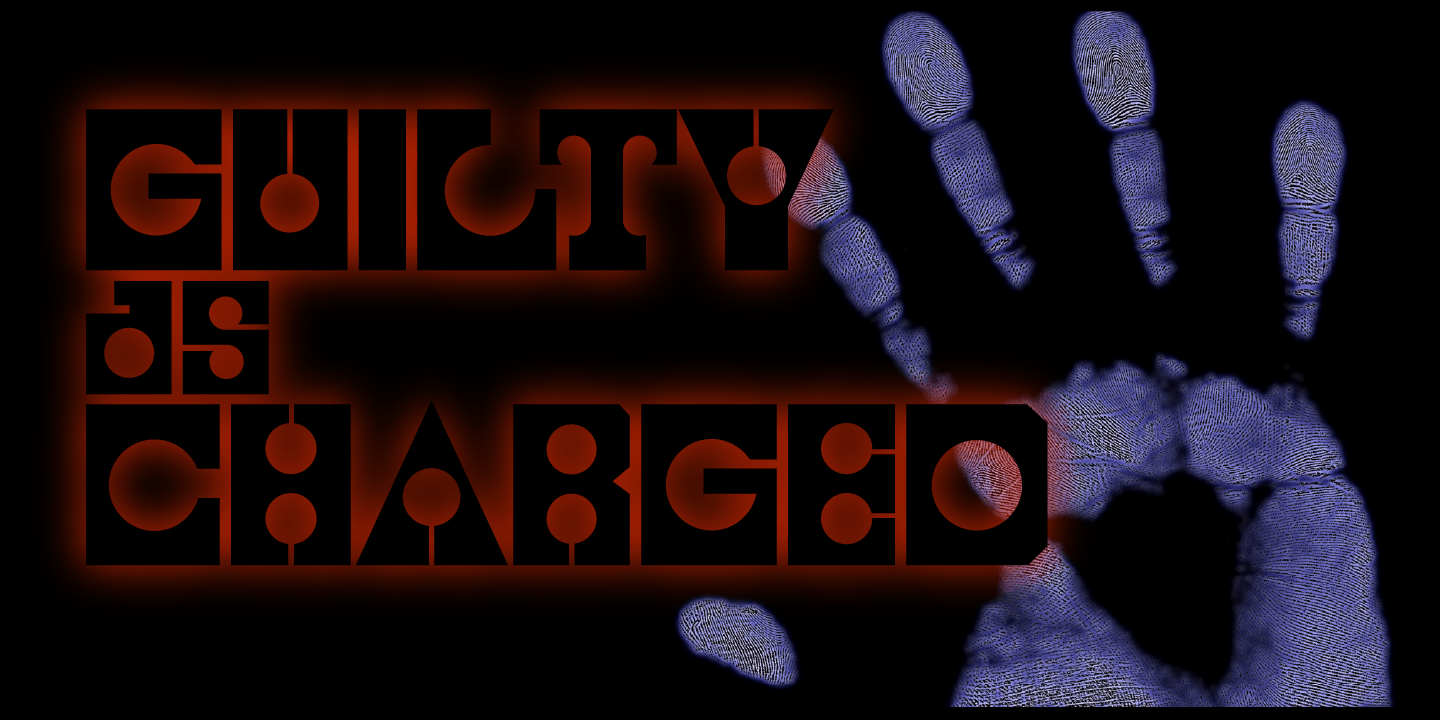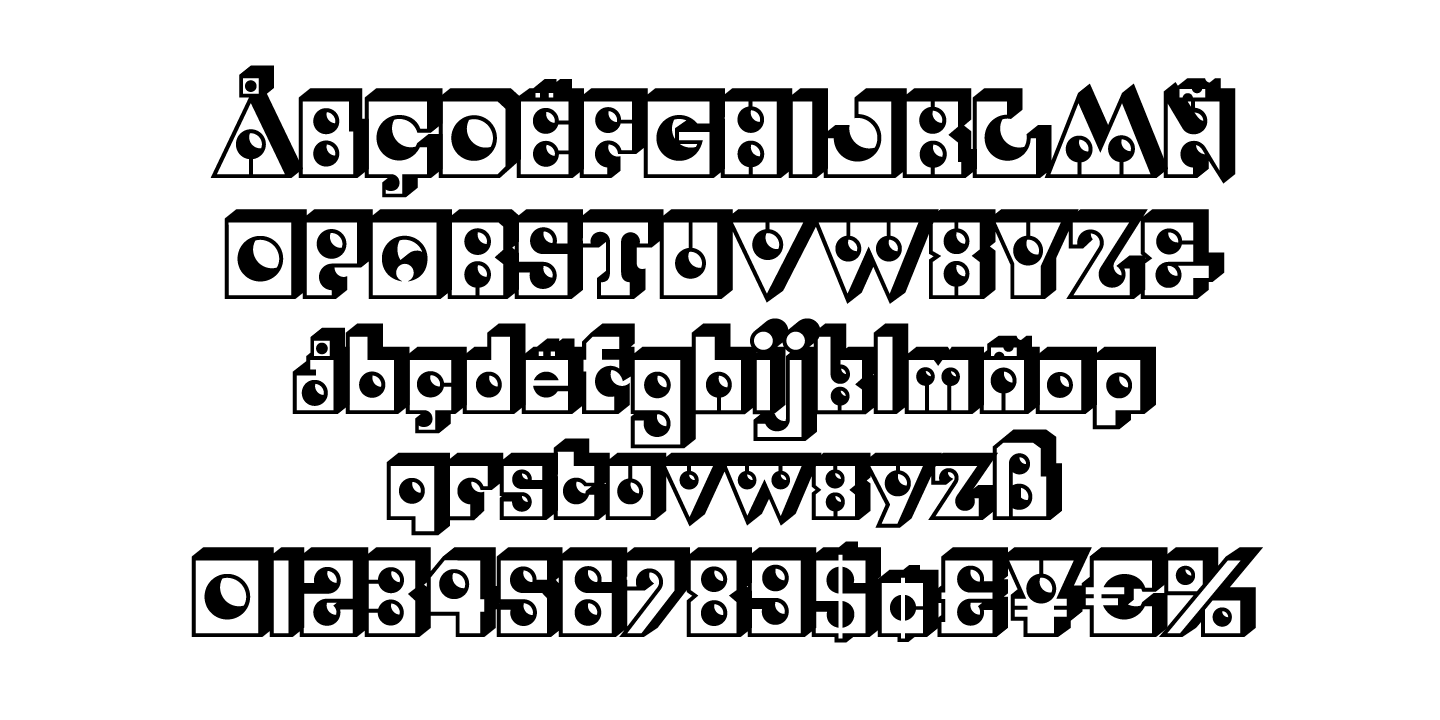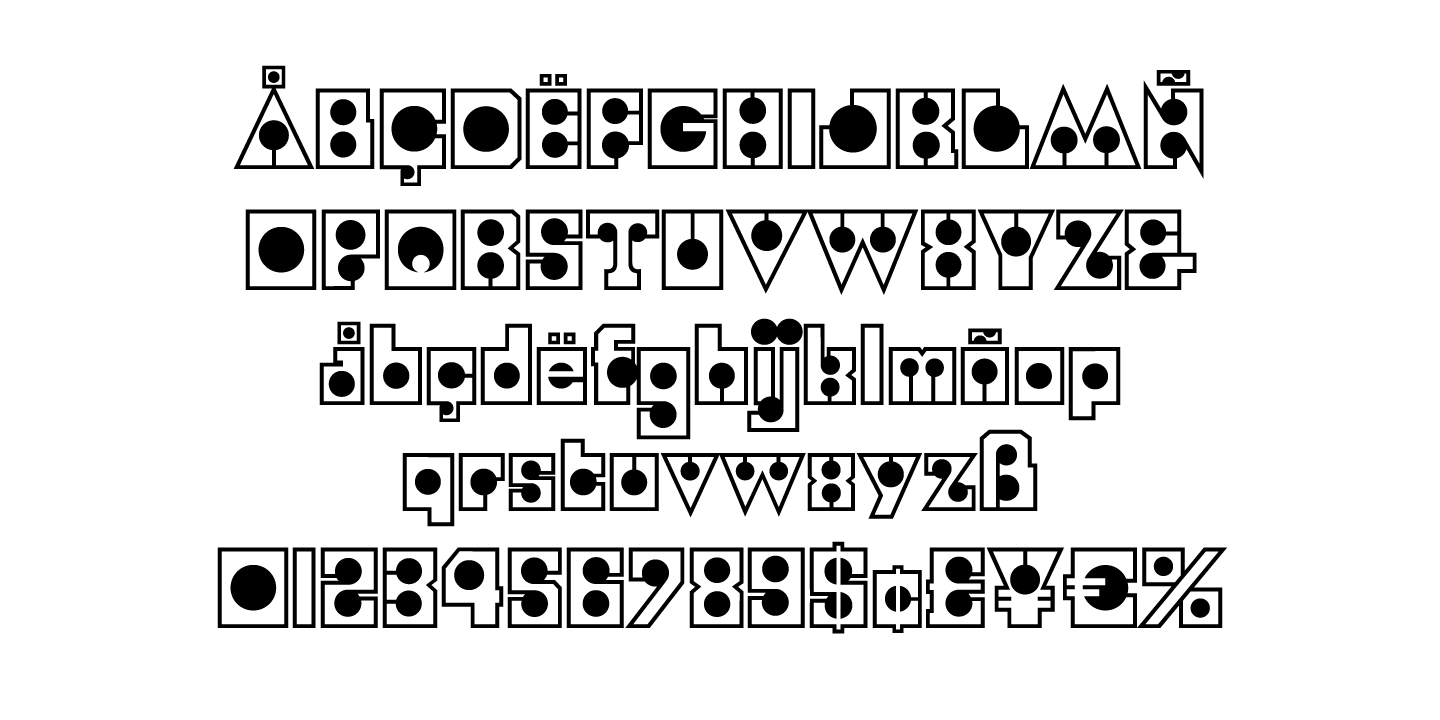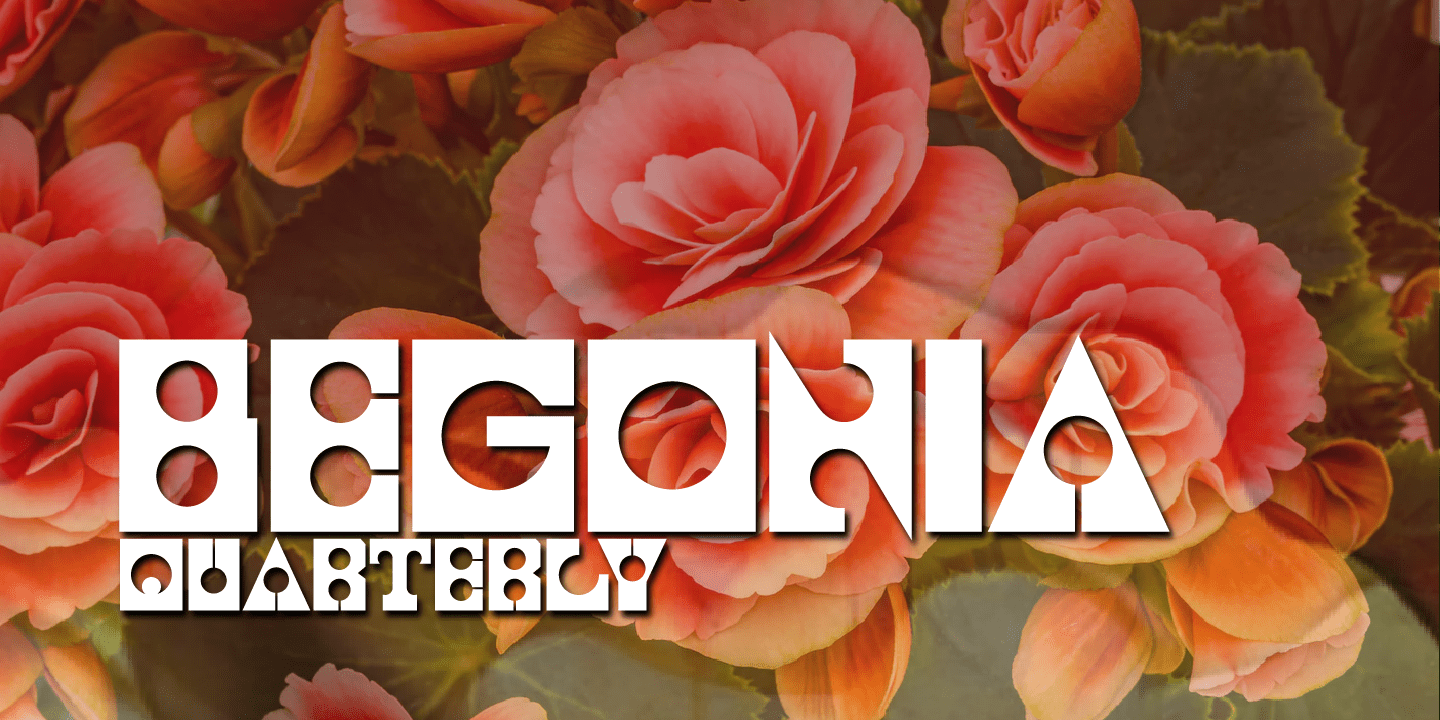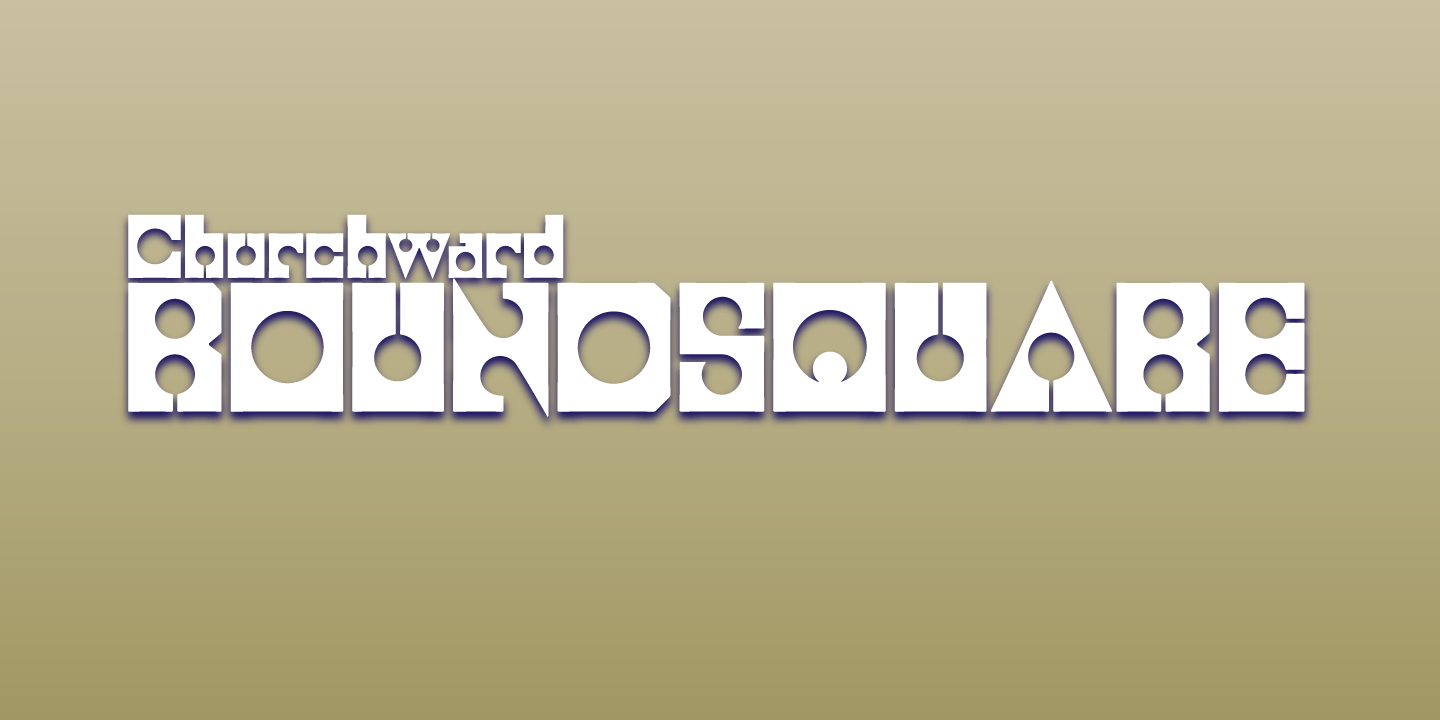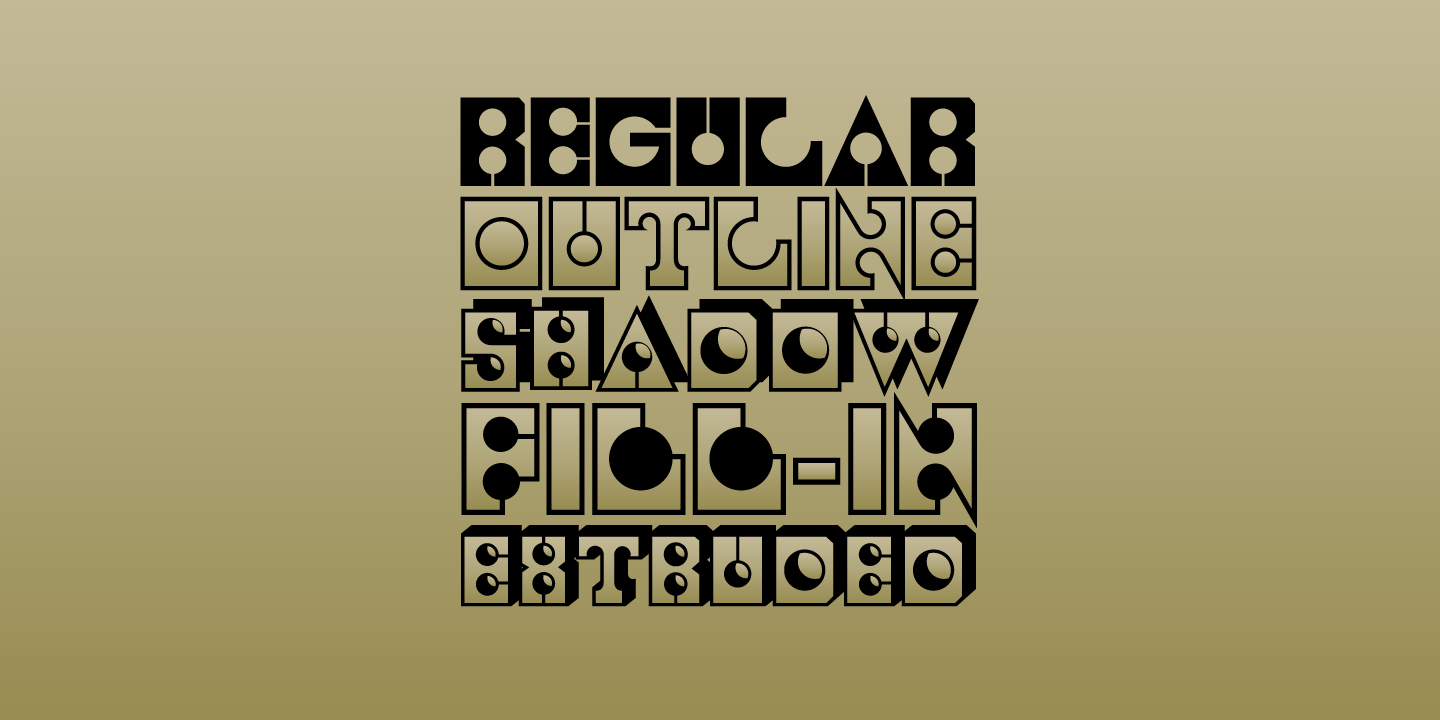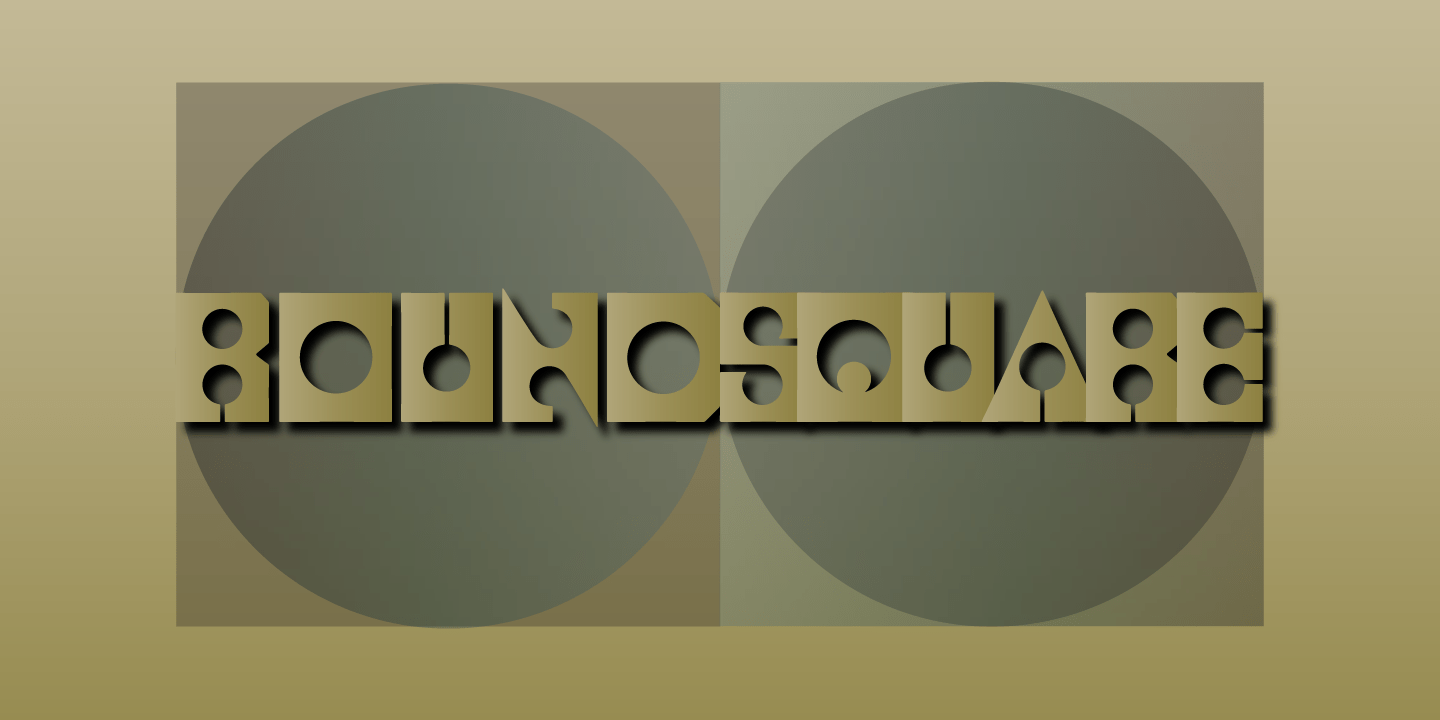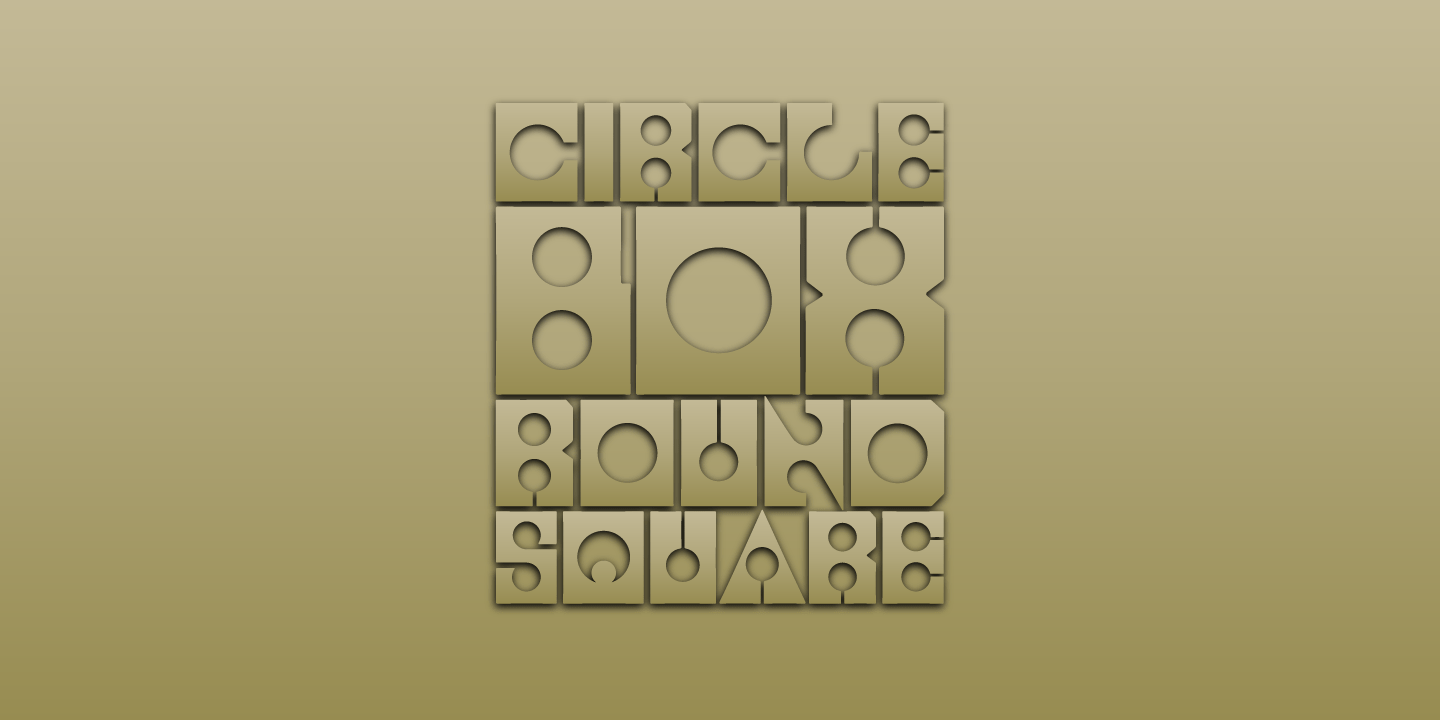
Churchward Roundsquare
Churchward Roundsquare is another fascinating typeface family by the late Joseph Churchward. Hand-lettered in the 1980's, Roundsquare is strictly a display typeface, based simply on circles and squares, and an occasional triangle. It has been described as architectonic. It's a fine example of Churchward's devotion to drawing unique letterforms. We had to invent a lot of the extra glyphs that make up a standard character set. We hope we succeeded in keeping the vibe alive! Spin-off variants include Roundsquare Outline, Roundsquare Fill In, Roundsquare Shadow, and Roundsquare Extruded. All of the Churchward Roundsquare fonts have an extended character set that supports many Western European languages.
Regular
Extruded
Fill In
Outline
Shadow